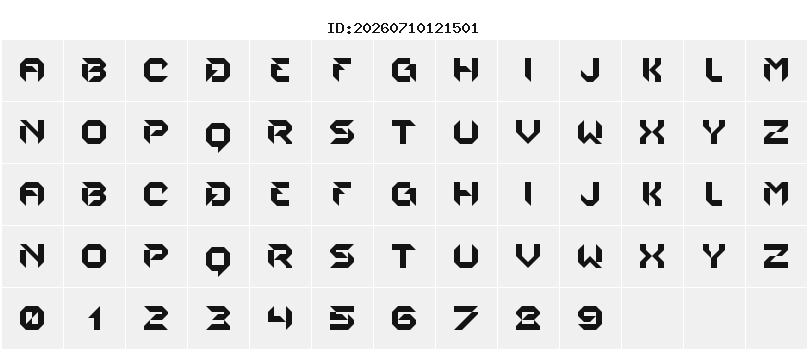
EDGE Preview
• Font Name: EDGE
• Font ID: FontStruct EDGE
• Full Font Name: EDGE Regular
• PostScript Name: EDGE
• Character Count: 101
• Designer: John Alexander
• Description: “EDGE” was built with FontStruct
About EDGE.ttf
EDGE.ttf is a modern, elegant sans-serif font designed for ultimate readability and visual harmony. Perfect for branding, headlines, web design, and print materials.